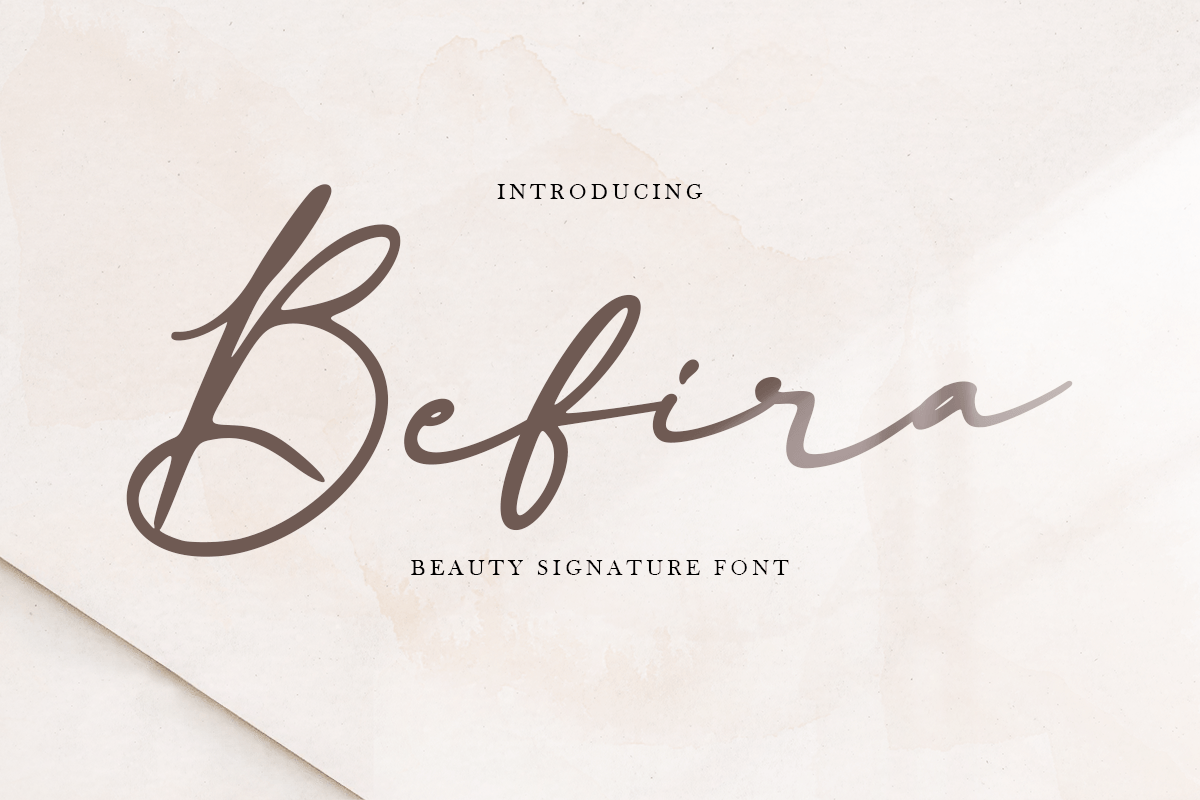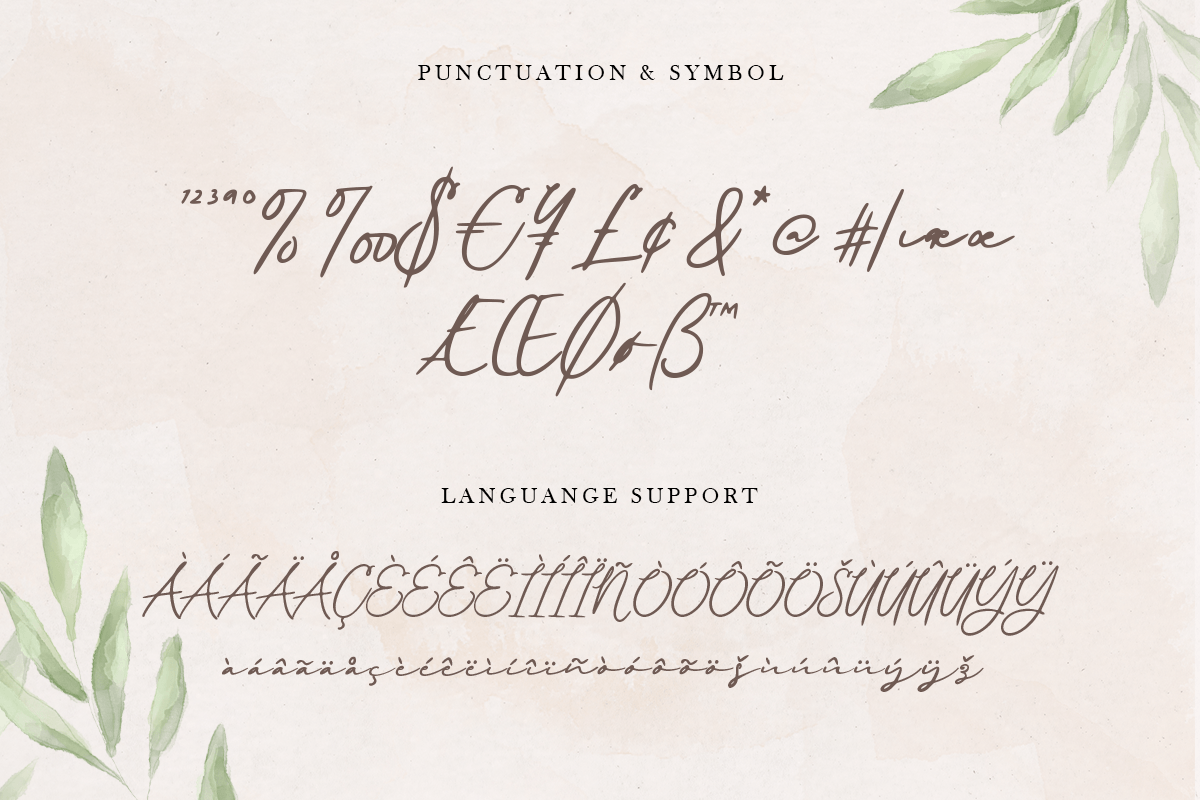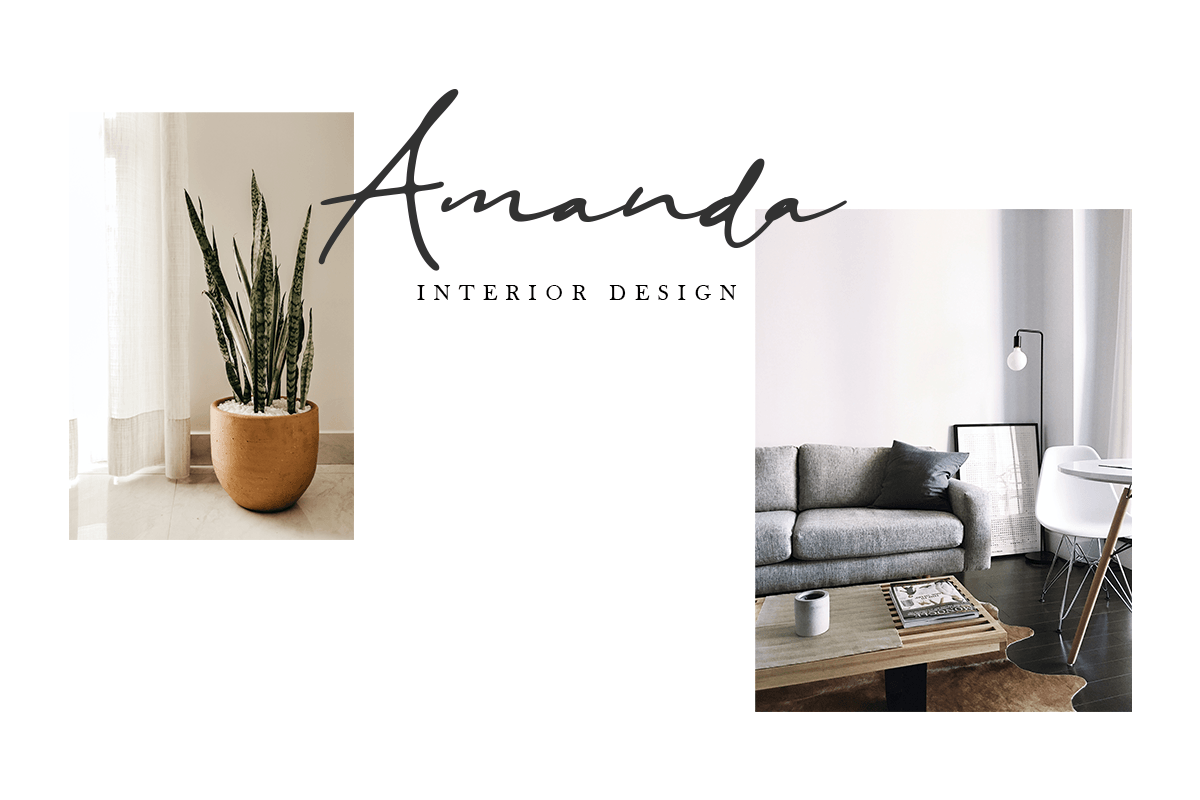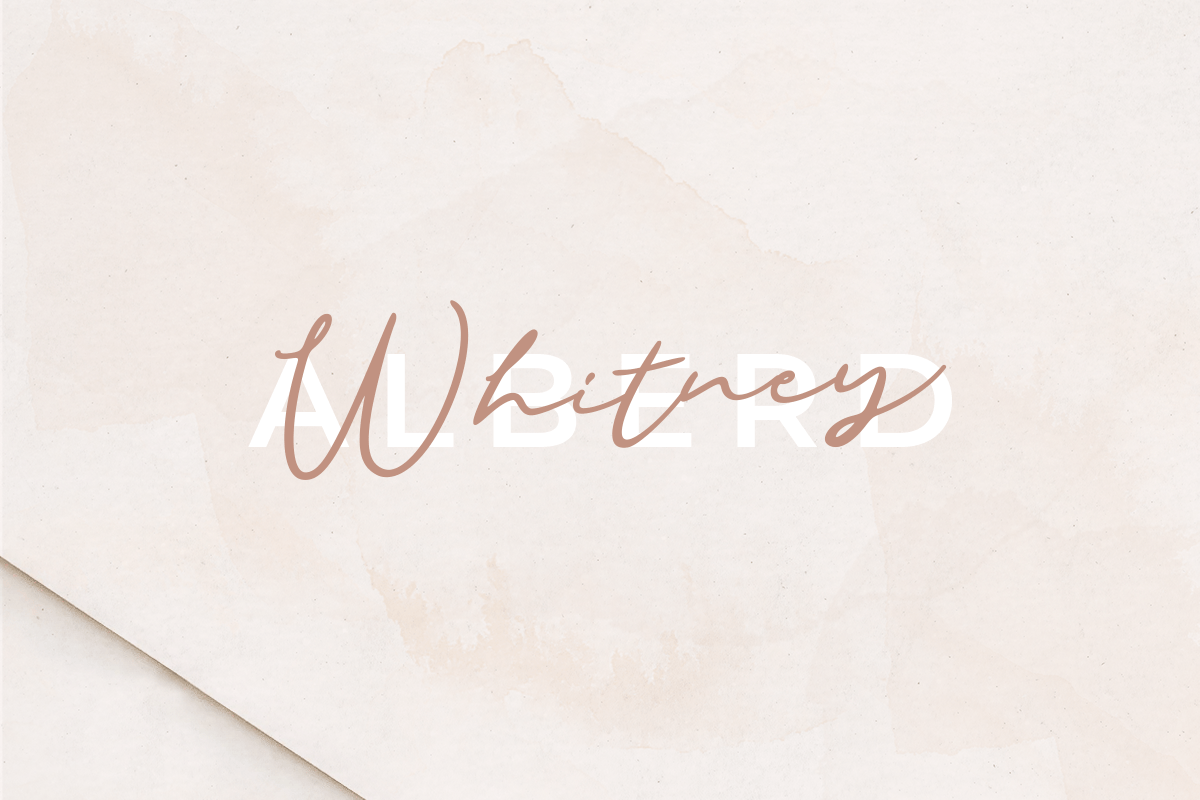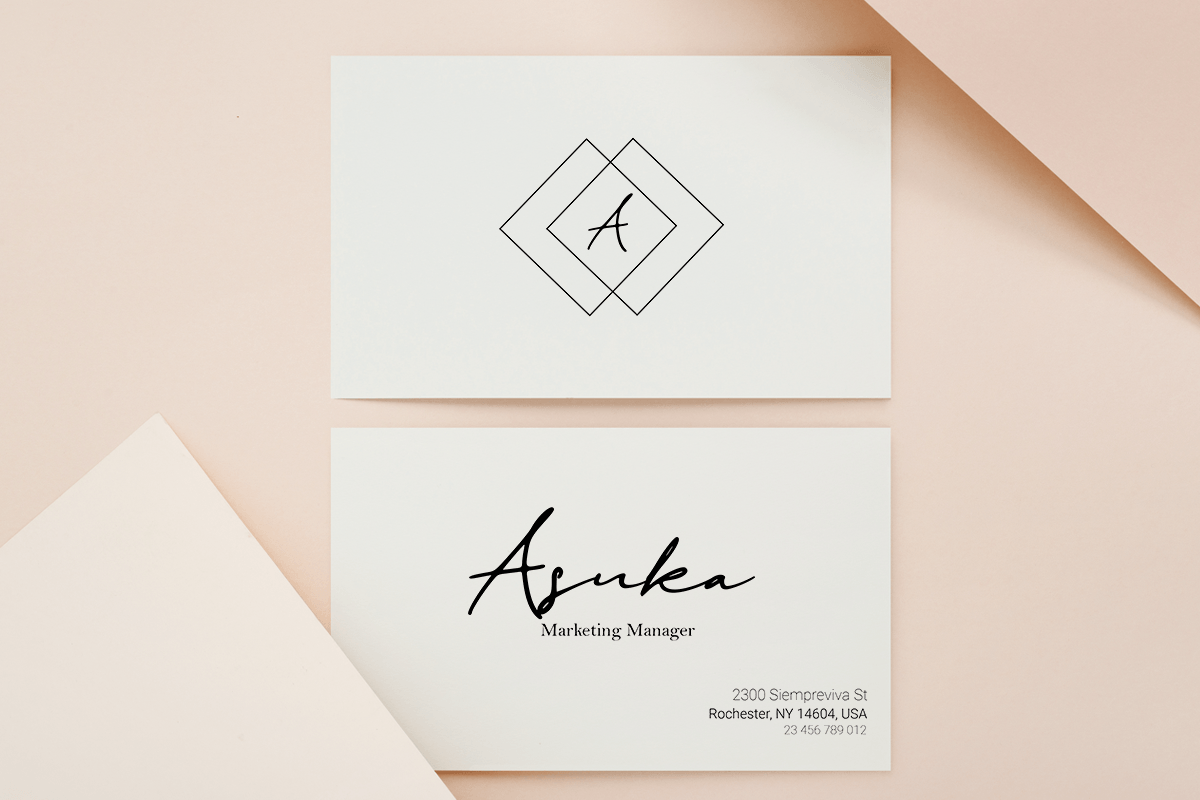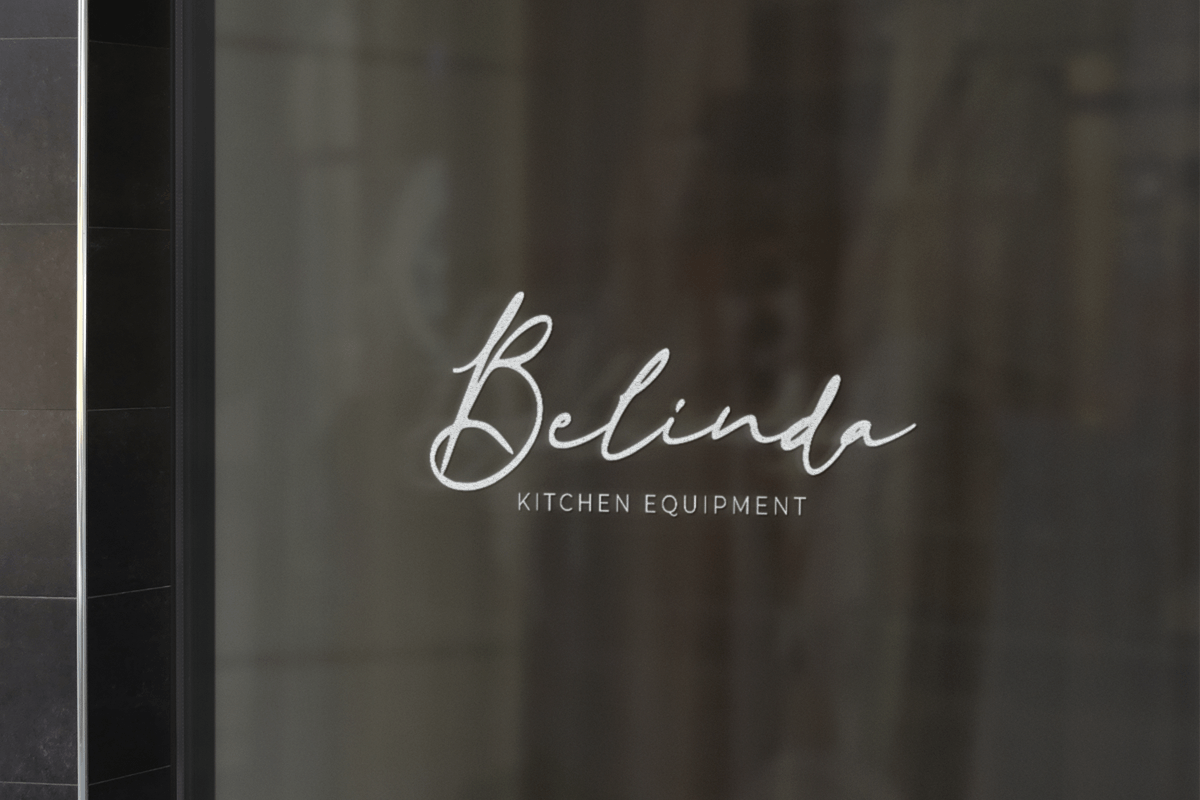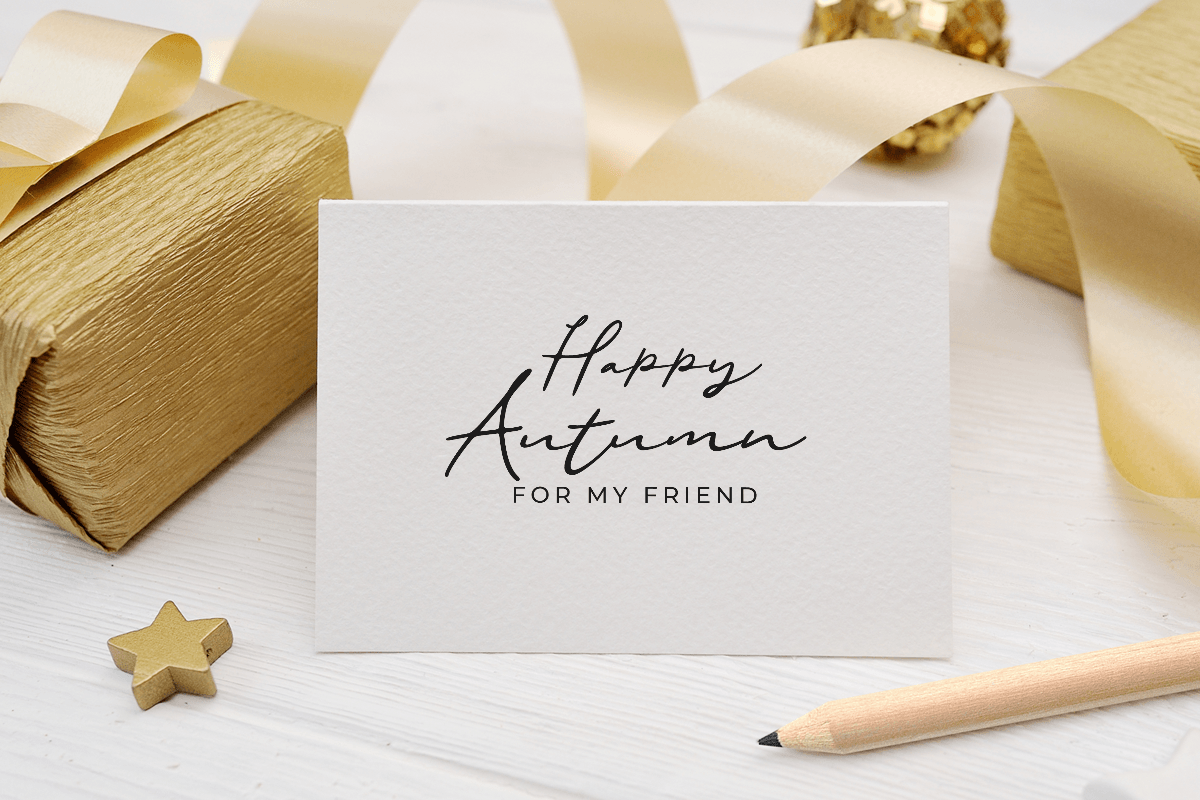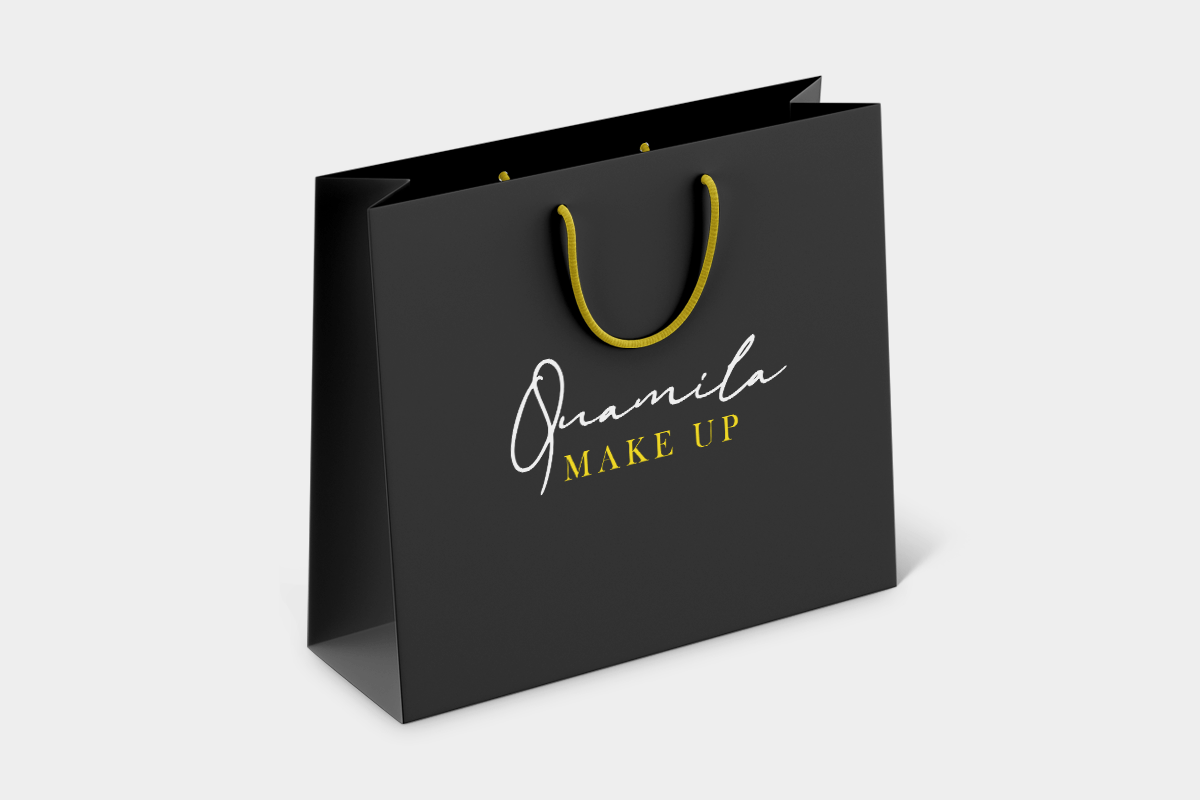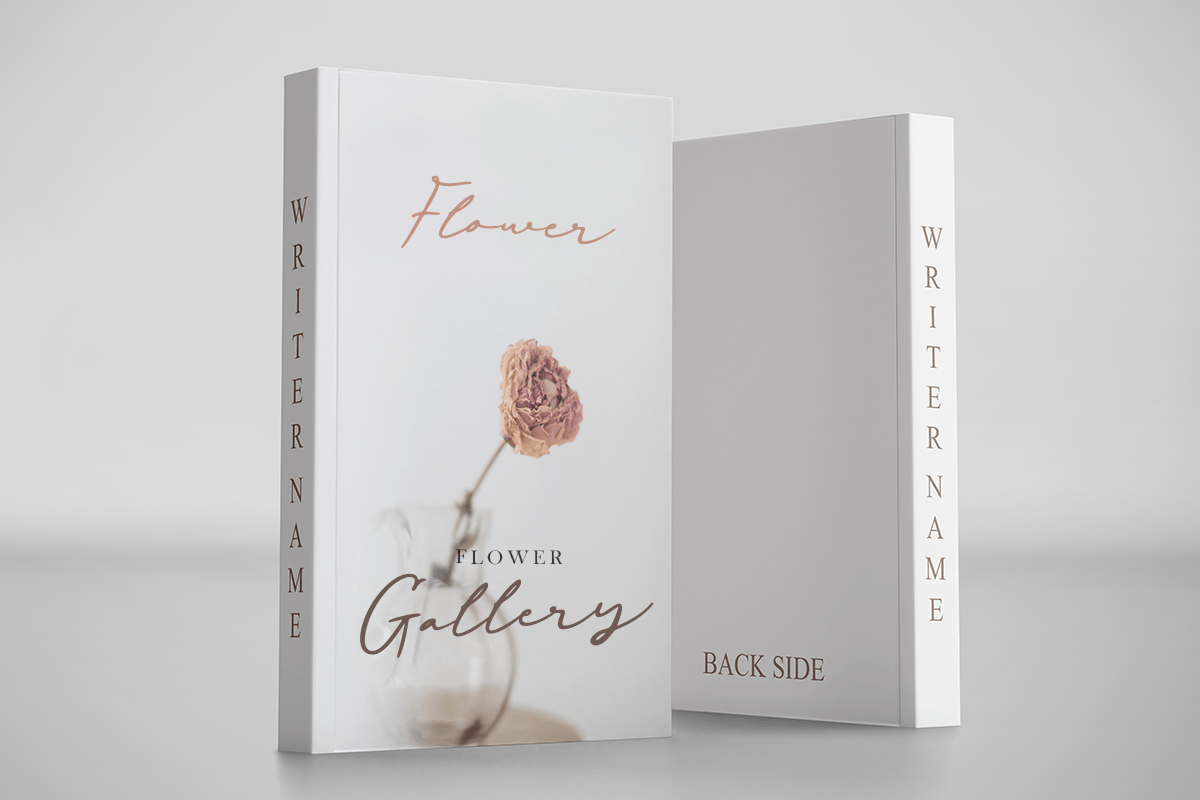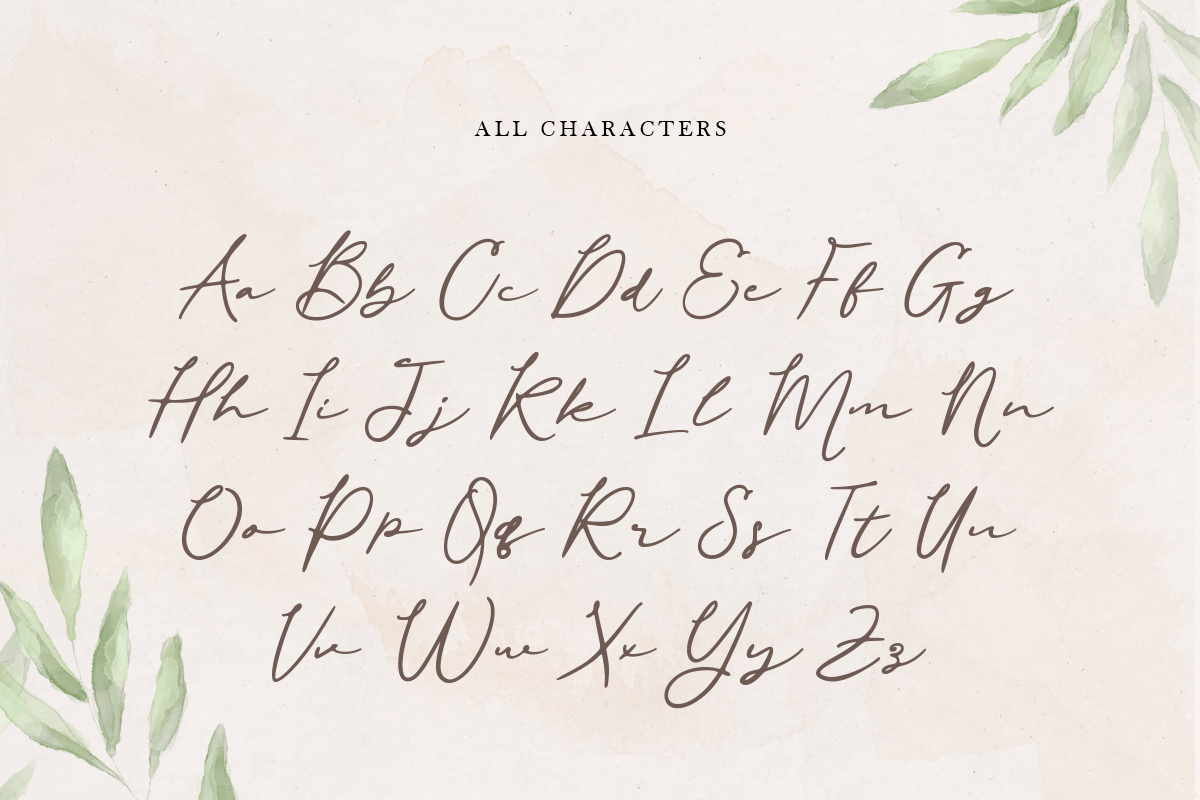
Befira
-Feminine and Beauty Script font
Befira
Befira is A Curly Feminine Unique Handwritten Script Font with nice and beauty style and so charming. This font specially crafted for your branding, quotes design projects or cute logo, unique, modern for any designs such as print, merchandise, and so many more with easy to use but unique results are so beauty.
Enjoy to Design any your needs with cute, beauty, and charming feel.